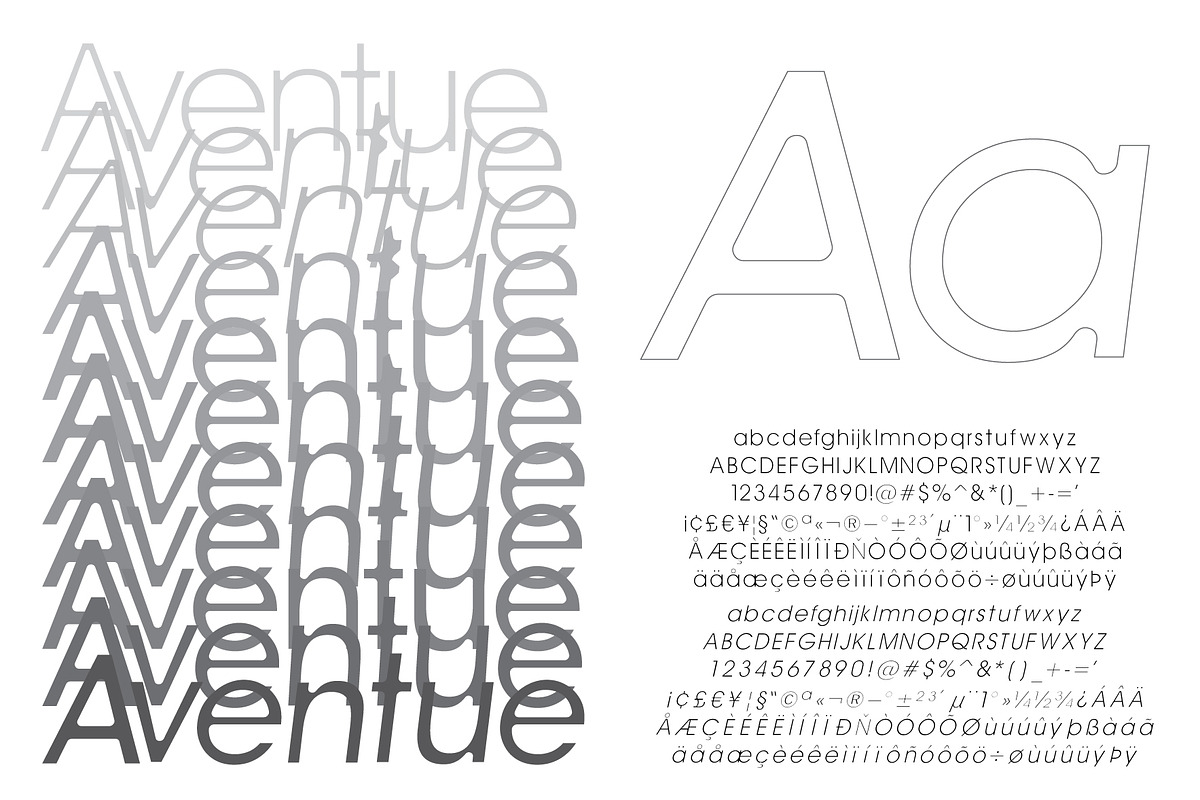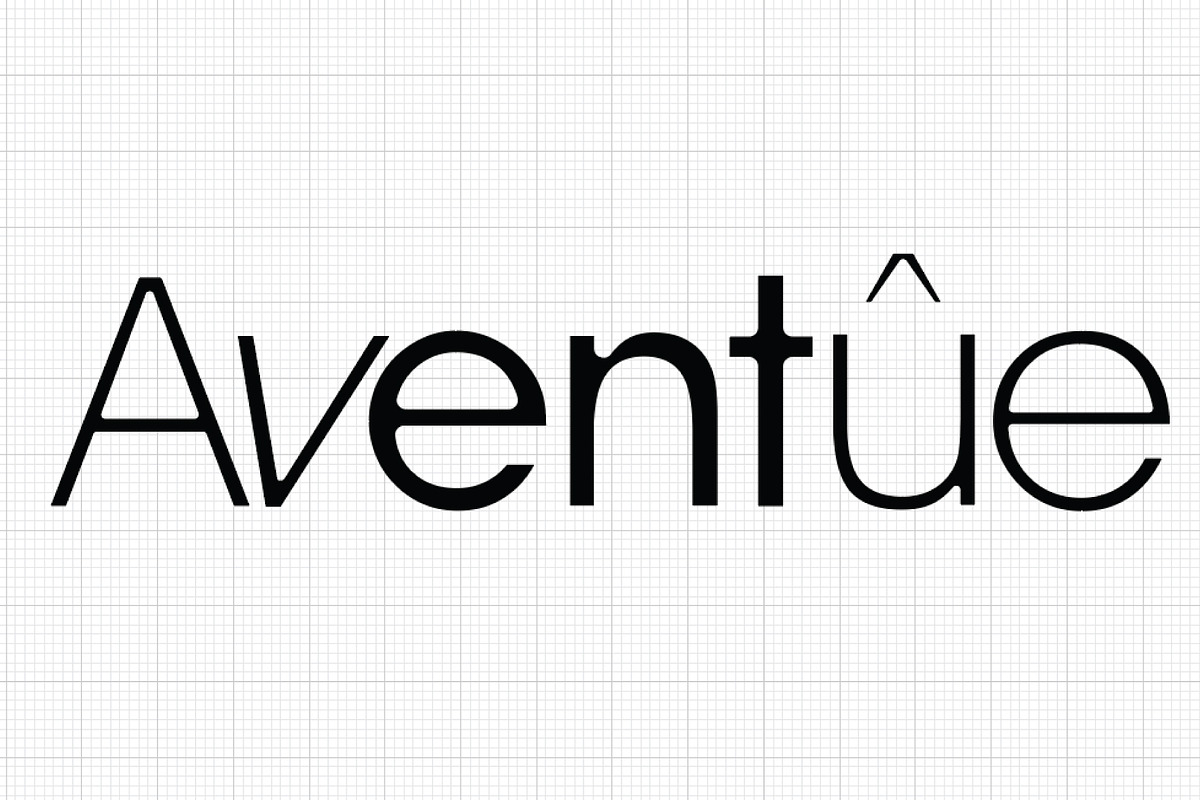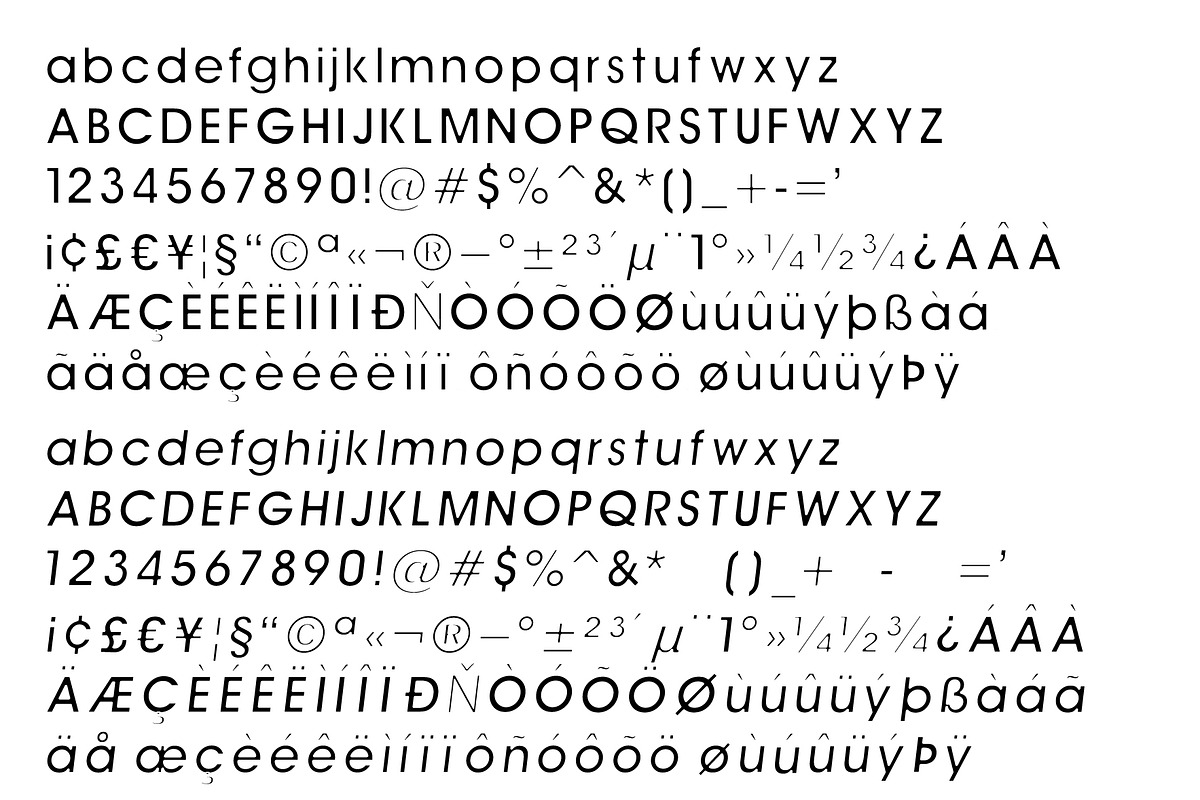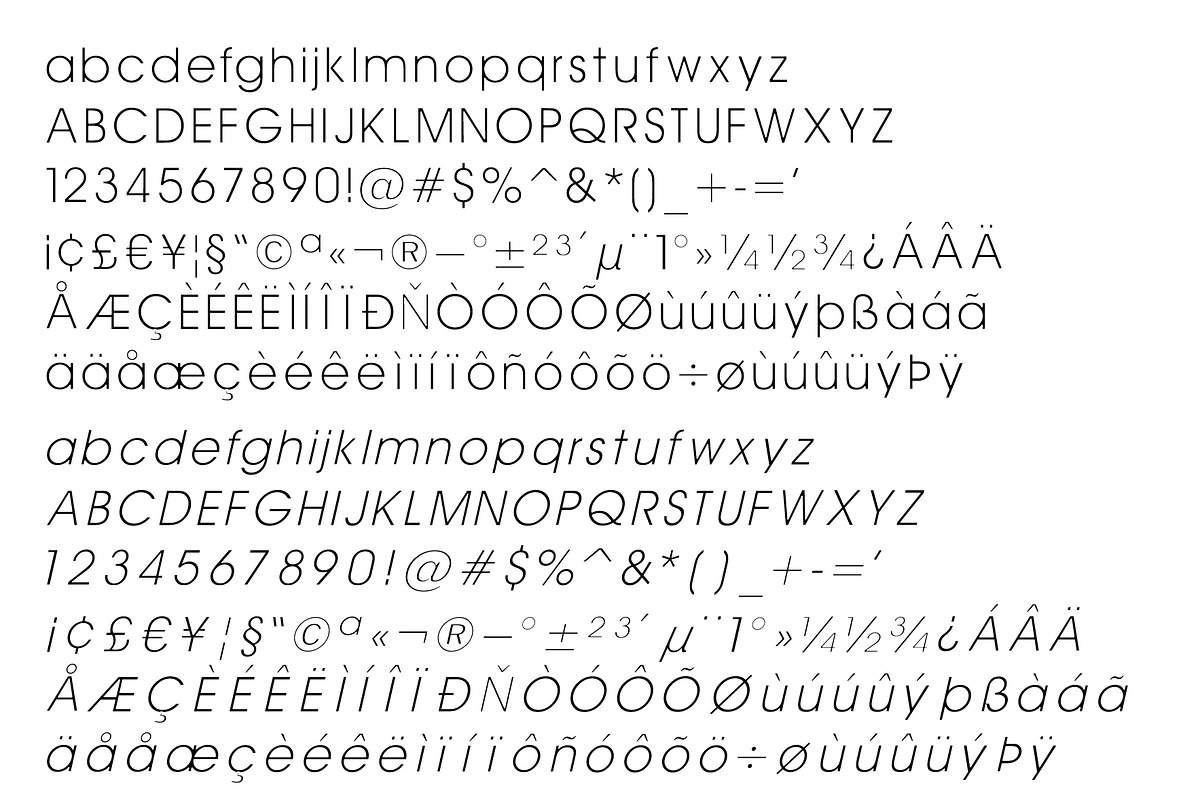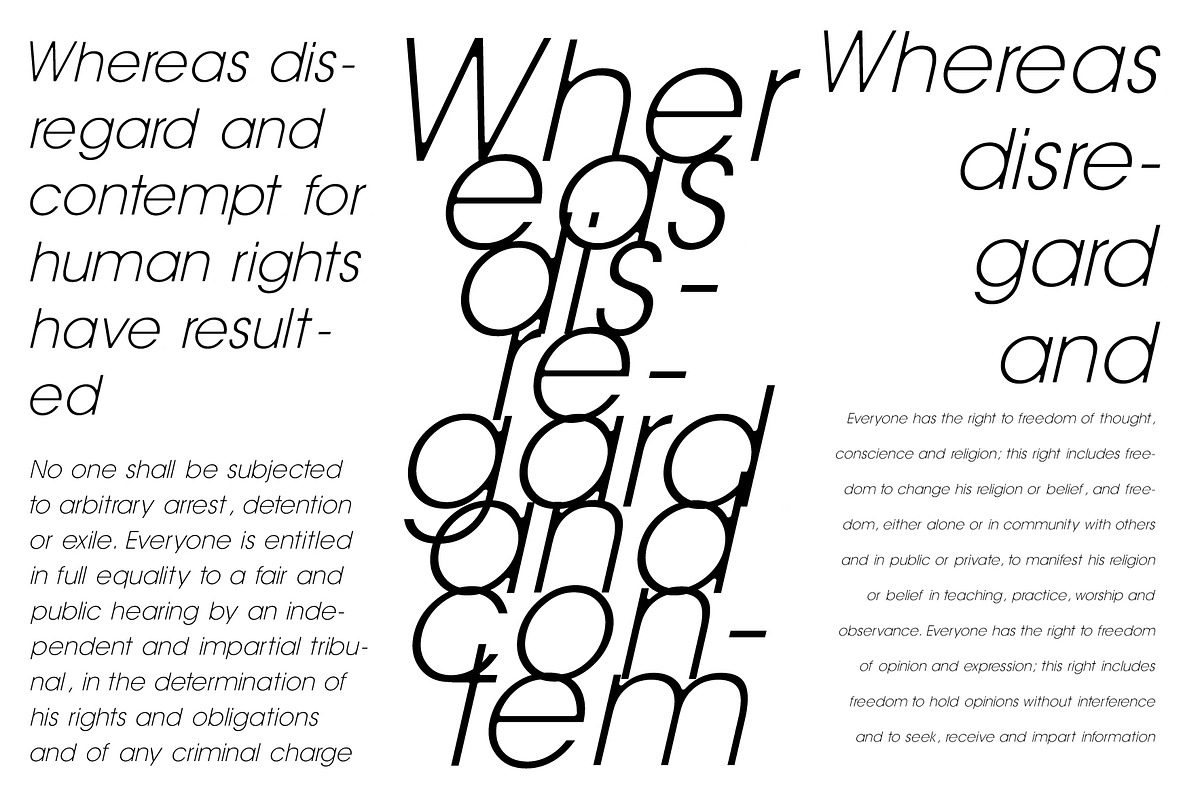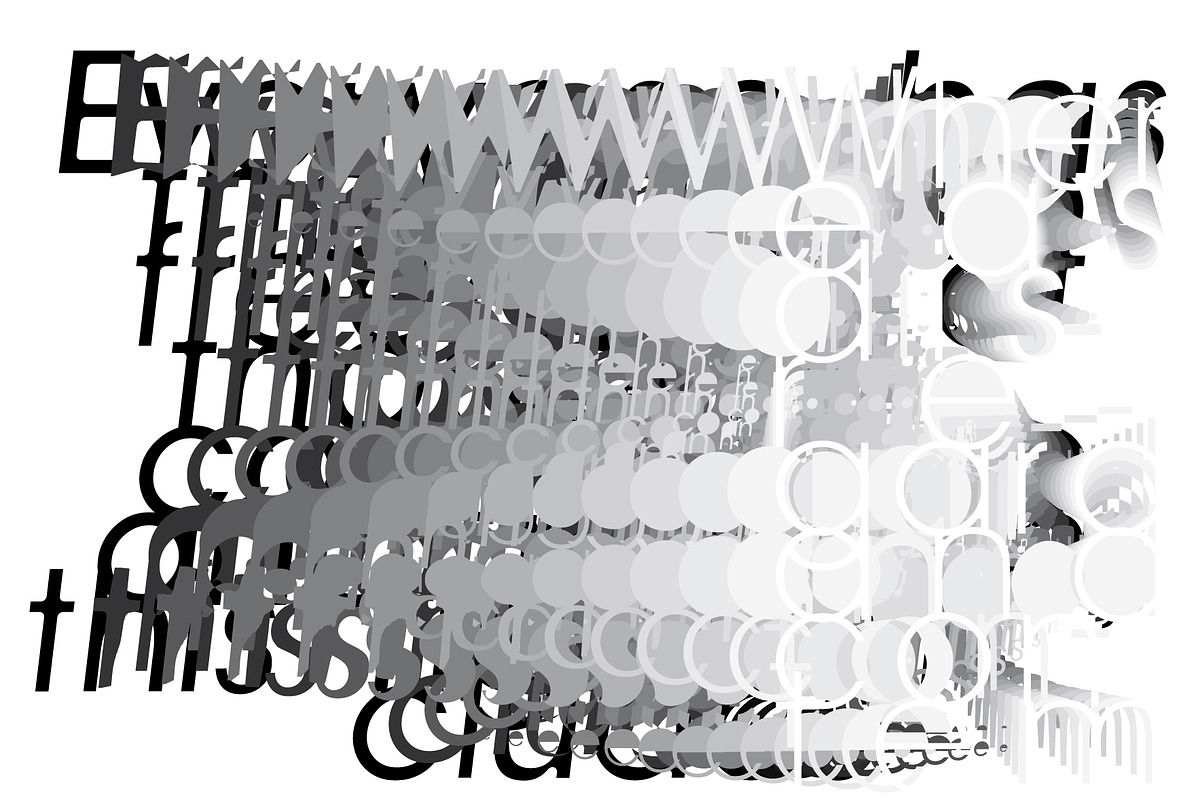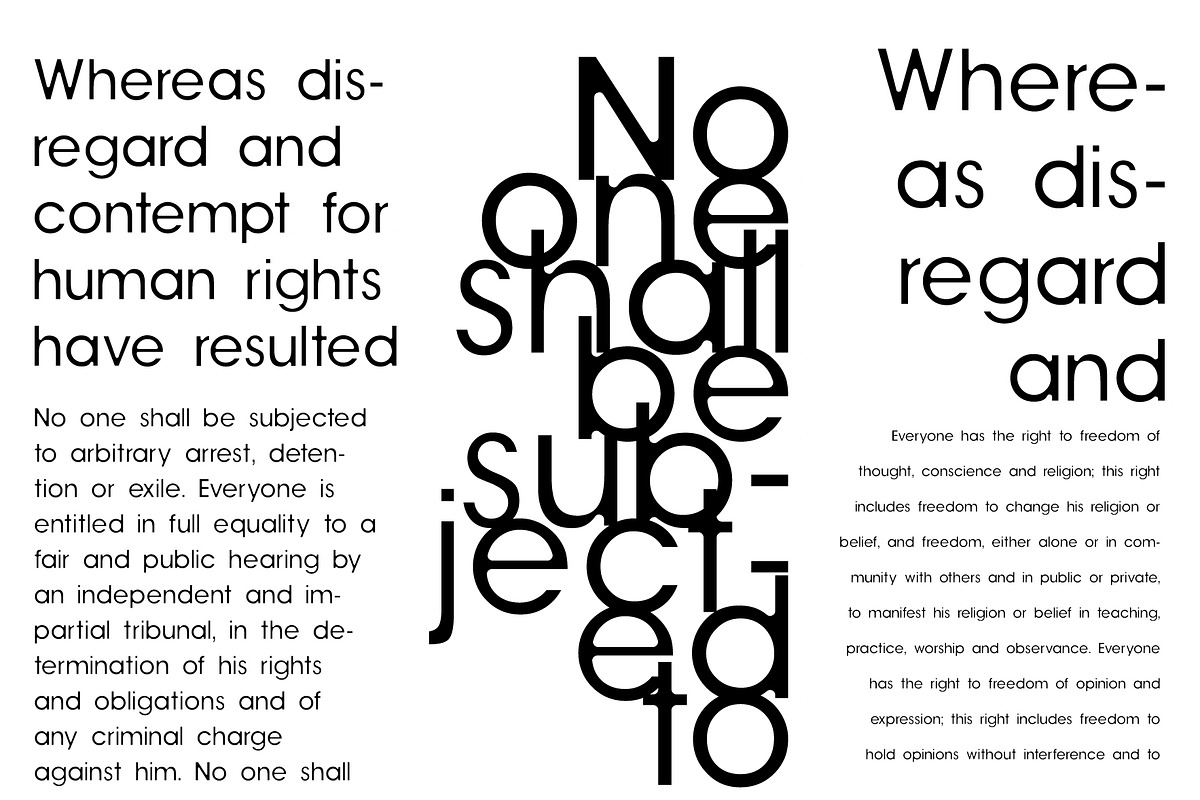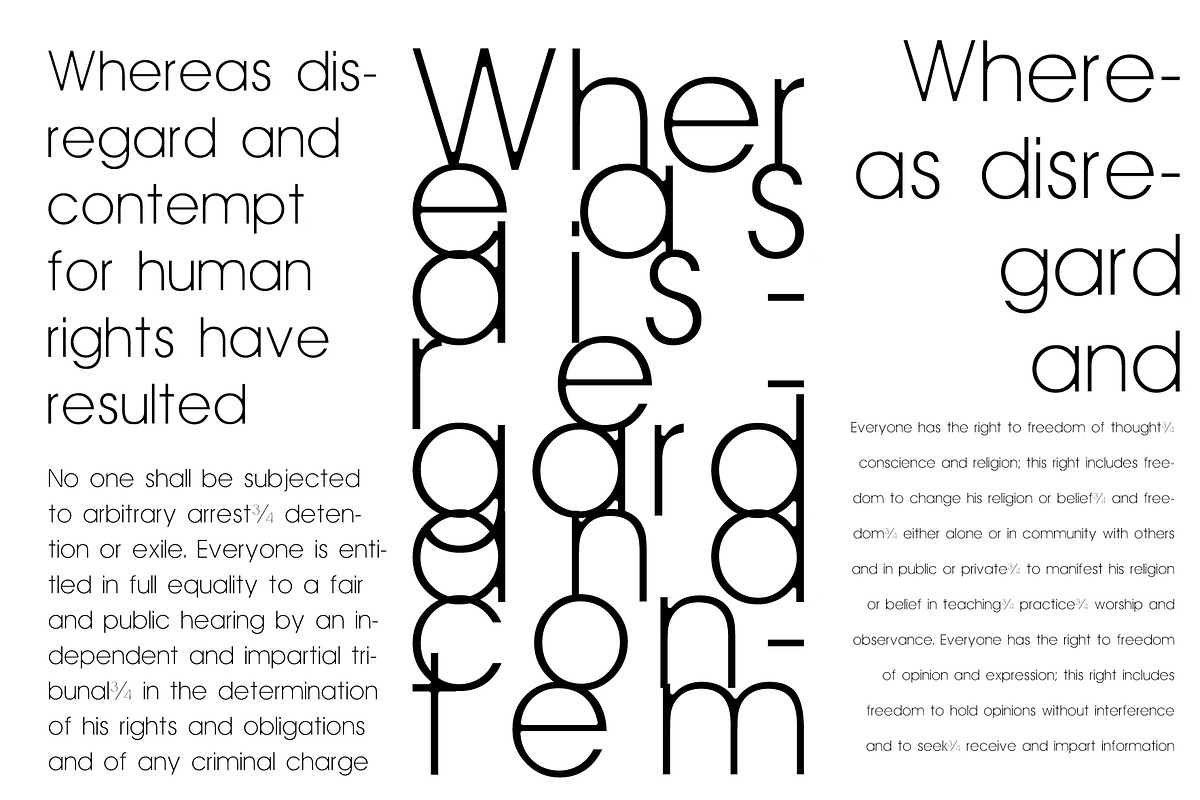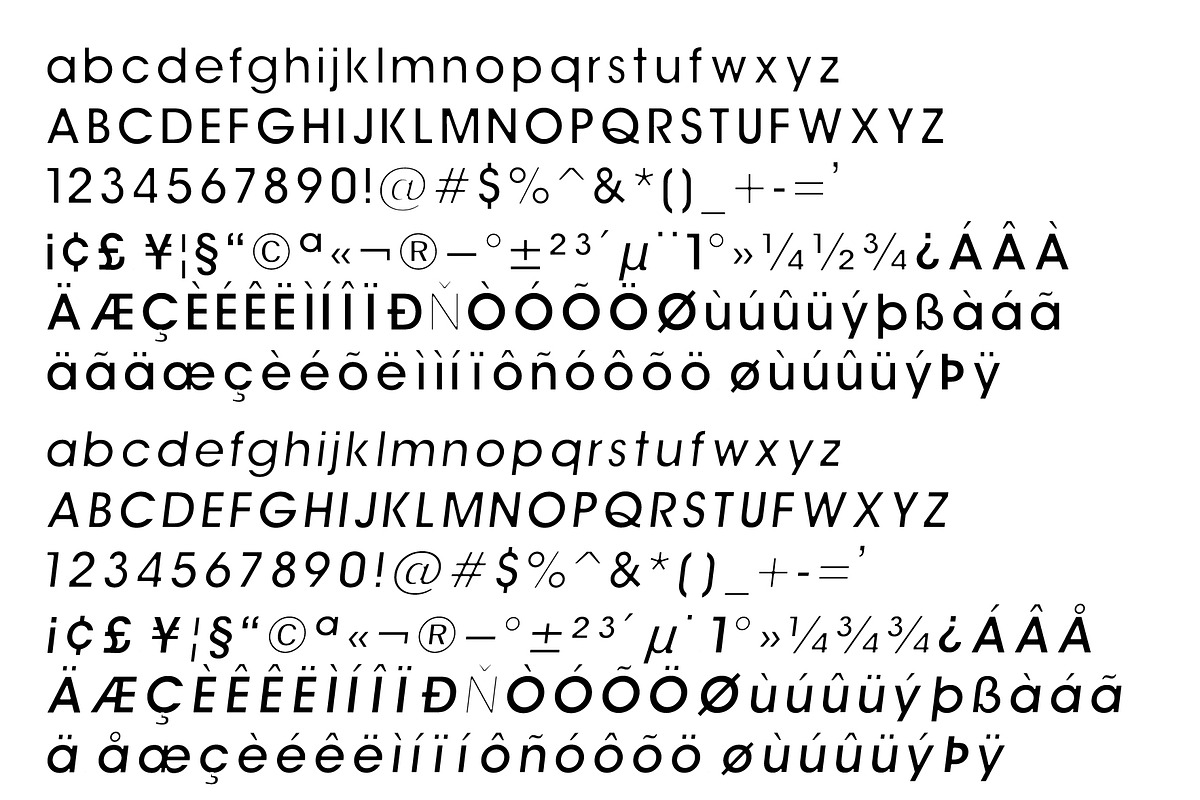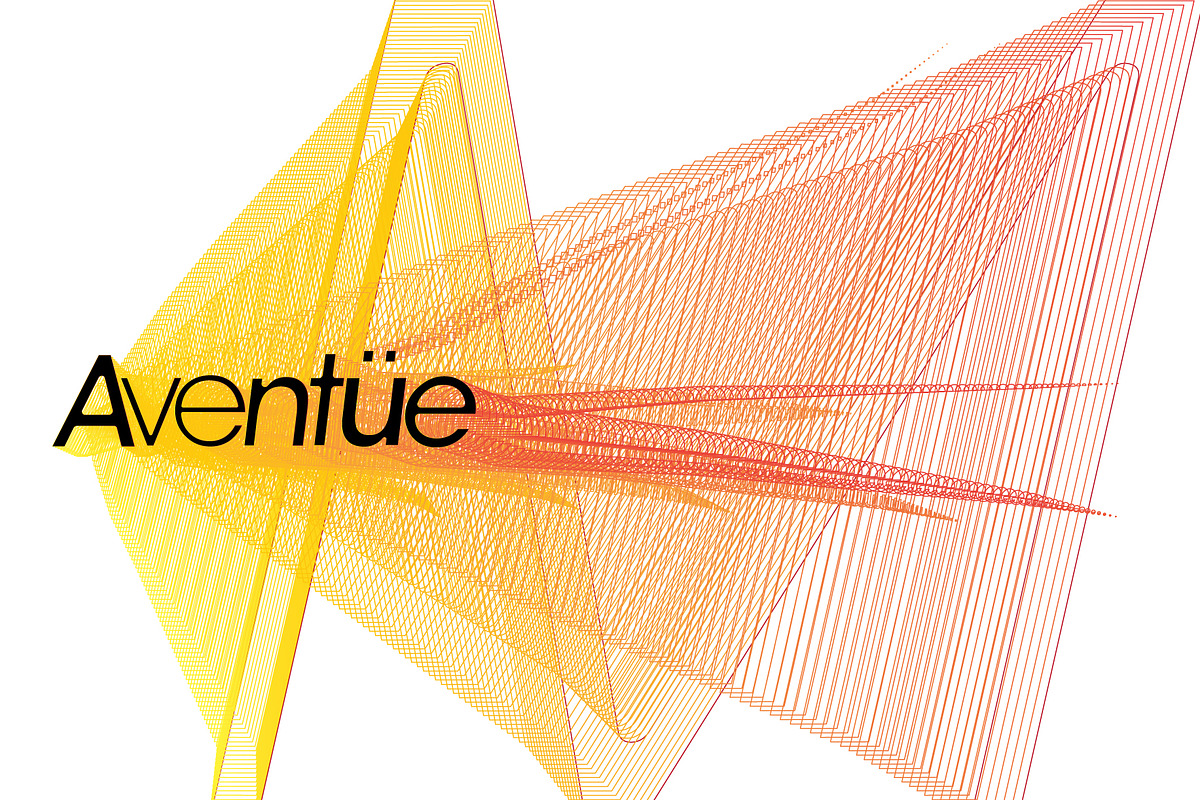
Aventue Family
Aventue Regular Italic Aventue Demi Italic Aventue Bold Italic
The New Font : AVENTUE is a powerful sans serif font family made to be a perfect choice for titles and headlines but it's versatile enough to be a good fit for a multitude of projects. It works very well for posters and other prints as well as for logos or other graphics that require strong and impactful typography